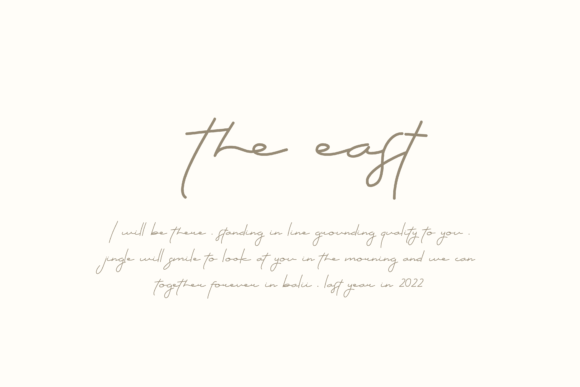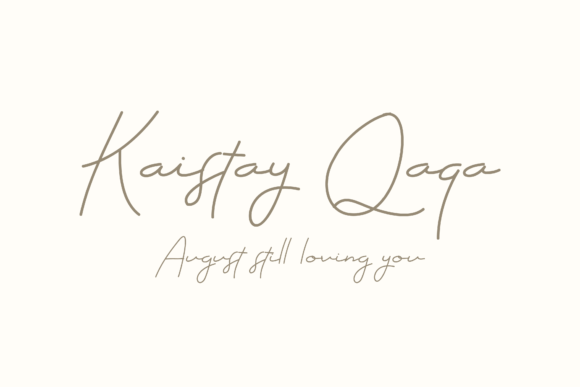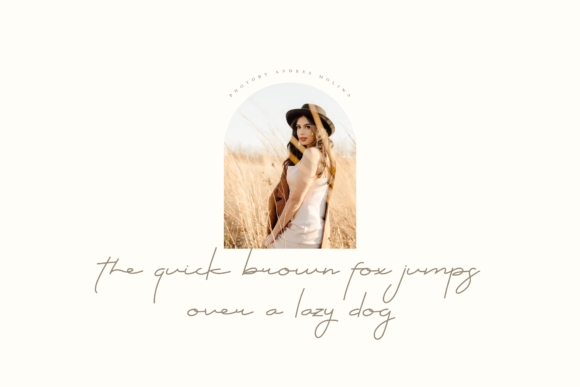
Introduction to Shootty Font
Shootty is a thin lettered script font that is defined by a delicate touch.
This font is perfect for campaign needs, branding, logos, Instagram stories, reels or memes .
Shootty Font offers exceptional quality and versatility, making it a valuable addition to your design toolkit. Whether you’re creating for personal projects or commercial use, Shootty Font delivers professional results.